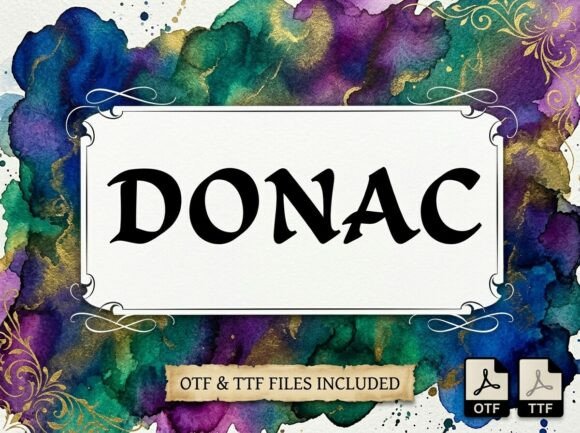
Discover the Timeless Elegance of Donac Font
In the world of typography, few fonts evoke the sense of history and sophistication that Donac effortlessly commands. This classic calligraphy font is a masterful recreation of traditional penmanship, designed to bring a touch of elegance and refinement to any design project. With its bold, high-contrast letterforms and sharp terminals, Donac is the perfect choice for designers and crafters seeking to add a sense of luxury and heritage to their work.
The Characteristics of Donac Font
Donac’s design is characterized by its bold, chiseled strokes that mimic the movement of a traditional flat-nib pen. The font features an upright posture, which gives it a sense of stability and authority, while its rhythmic weight distribution creates a sense of fluidity and movement. The sharp terminals and broad strokes of Donac’s letterforms are a hallmark of traditional calligraphy, and have been carefully crafted to evoke the sense of handcrafted prestige that is at the heart of this font.
Uses for Donac Font
Donac’s versatility and elegance make it an excellent choice for a wide range of design projects. Here are just a few examples of how this font can be used:
- Historical Book Titles: Donac’s classic, sophisticated design makes it the perfect choice for historical book titles, adding a touch of elegance and refinement to any book cover or title page.
- Luxury Diploma Designs: Whether you’re designing a diploma for a prestigious university or a certificate for a high-end business, Donac’s luxurious feel and sophisticated design make it an excellent choice.
- Artisanal Spirit Labels: Donac’s rustic, handcrafted feel makes it a great fit for artisanal spirit labels, adding a touch of heritage and tradition to any product.
- Medieval-Themed Event Headers: If you’re planning a medieval-themed event, Donac’s bold, chiseled design is the perfect choice for headers and titles, evoking the sense of history and pageantry that is at the heart of this font.
Crafting a Logo or Header with Donac Font
Whether you’re crafting a logo for a heritage brand or a standout header for a creative portfolio, Donac delivers a sense of polished artisanal beauty and historical charm to every word. Here are a few tips for getting the most out of this font:
- Use it sparingly: Donac’s bold, chiseled design can be overwhelming if overused. Use it sparingly to add emphasis and create a sense of luxury and sophistication.
- Experiment with colors: Donac looks great in a range of colors, from rich golds and blacks to deep reds and blues. Experiment with different colors to find the one that best fits your design.
- Pair it with contrasting fonts: Donac’s bold design makes it a great fit for pairing with contrasting fonts. Try pairing it with a clean, modern sans-serif to create a sense of contrast and visual interest.
Why Choose Donac Font?
In conclusion, Donac font is a timeless and elegant choice for any design project. Its bold, high-contrast letterforms and sharp terminals evoke the sense of history and sophistication that is at the heart of traditional calligraphy. With its versatility, high-quality design, and timeless elegance, Donac is a great investment for any designer or crafter seeking to add a touch of luxury and heritage to their work.